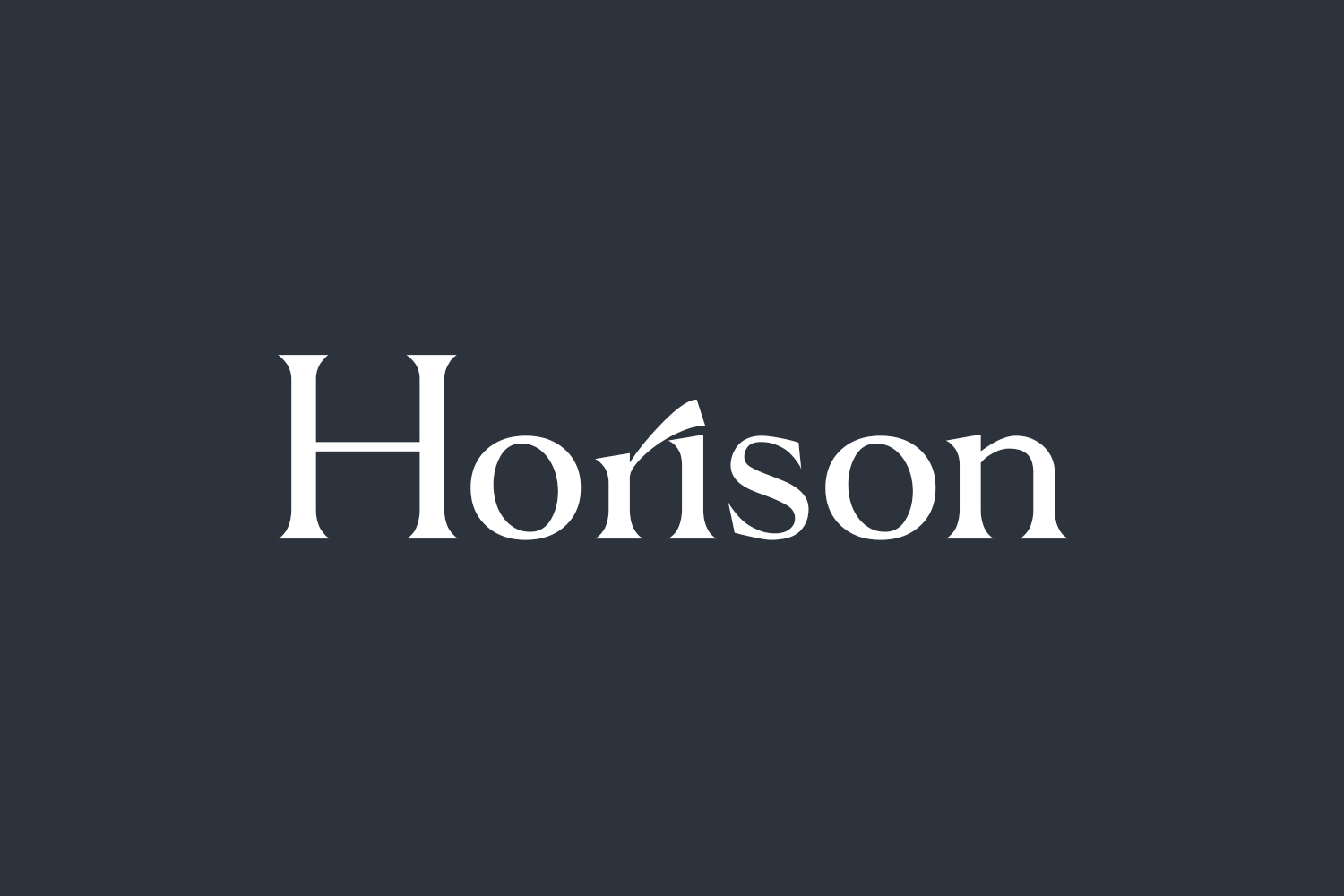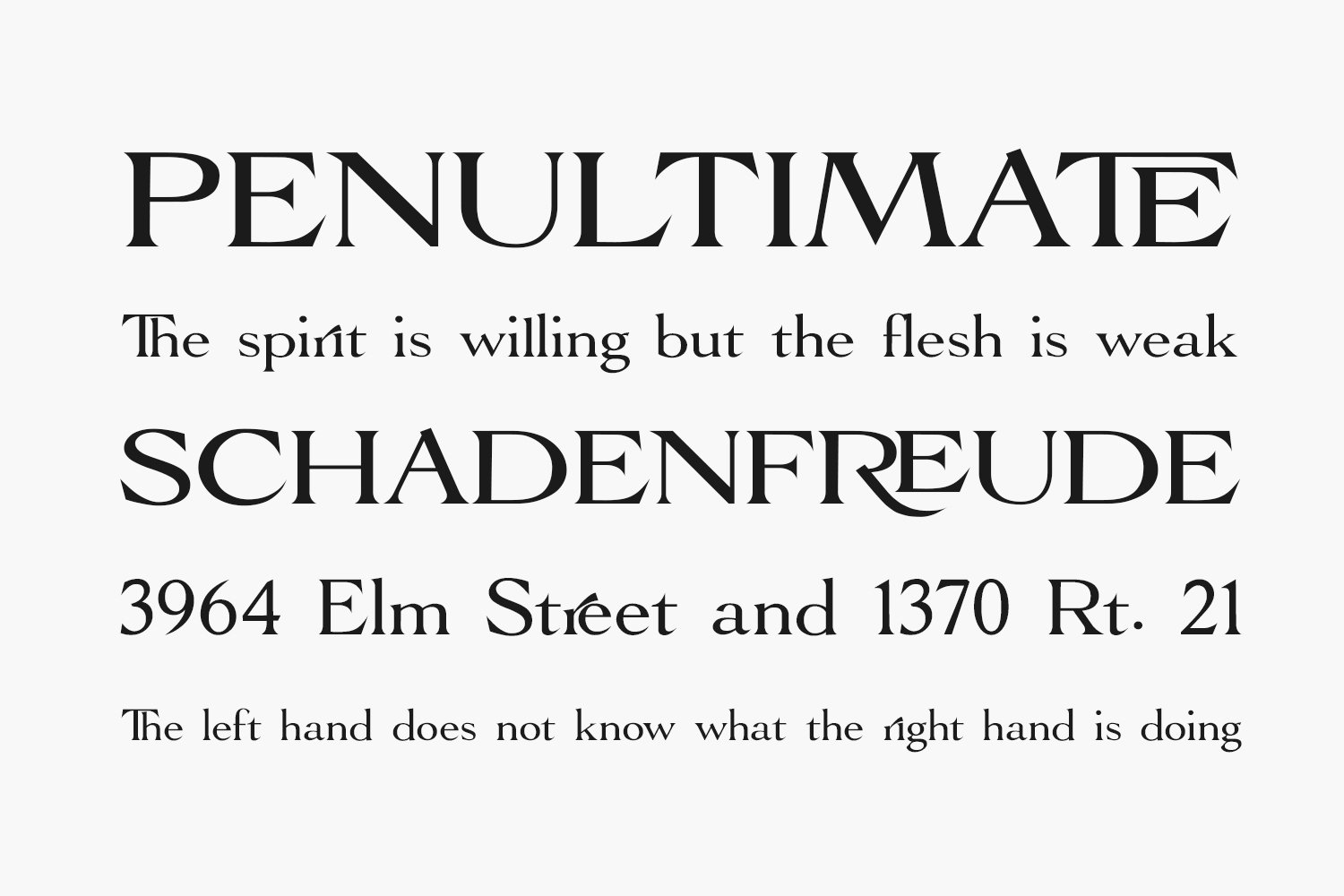
Discover Horison Free Font, a contemporary and refined serif font that seamlessly blends elegance with modern design. With its meticulously crafted and well-balanced characters, this font complements a diverse range of creative projects. Elevate your most imaginative ideas by incorporating Horison and witness how it breathes life into them. Horison Free Font was designed by Dwi Sulistyono and is free for personal use only. Please purchase the full version for commercial use.